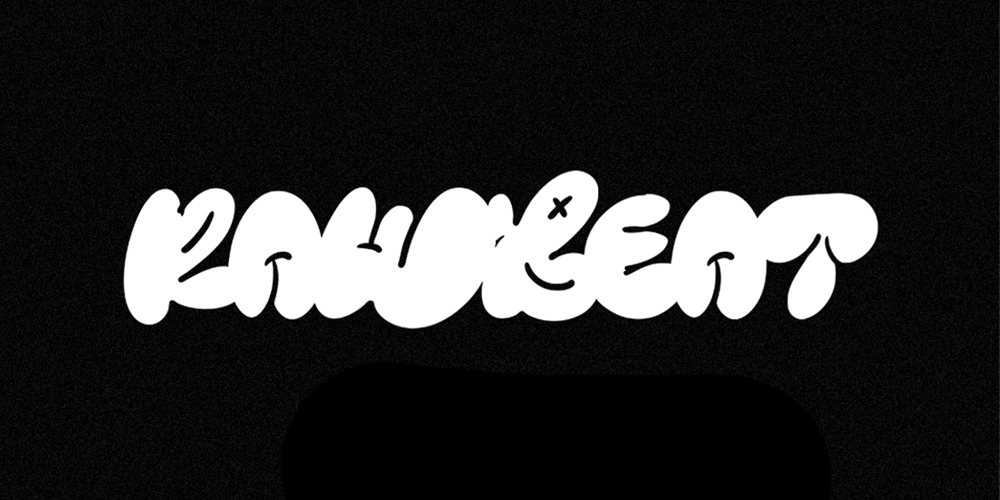
Rawbeat Font Family was designed by Miftahul Habib and published by Wasabib Type Foundry. Rawbeat contains 3 styles and family package options. RAWBEAT is a Display Font with graffiti style, this font coming with 3 style :Regular, Outline, and Extrude.this font will make your designs or branding stand out and eye catching.100% hand drawing to get the artistic look and make it more powerfull.